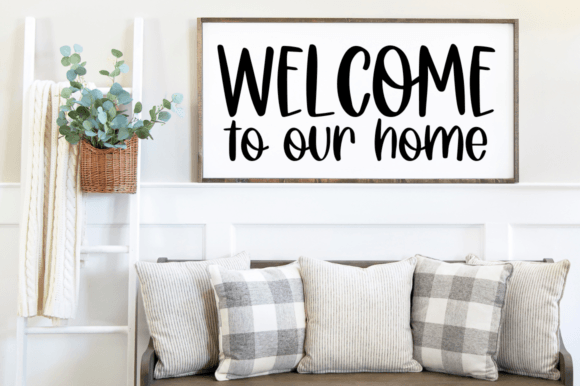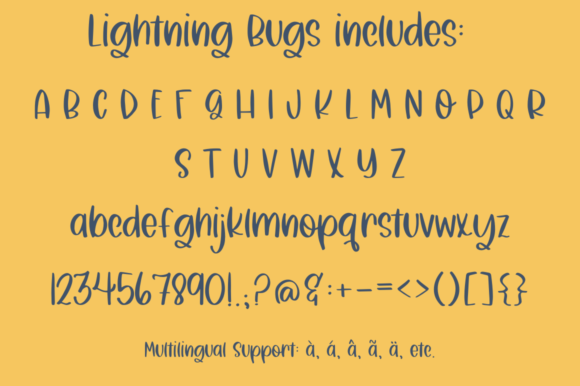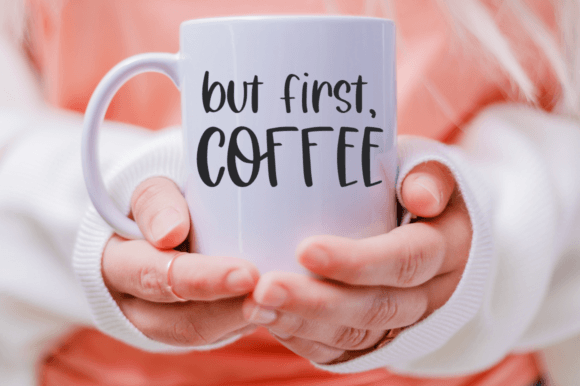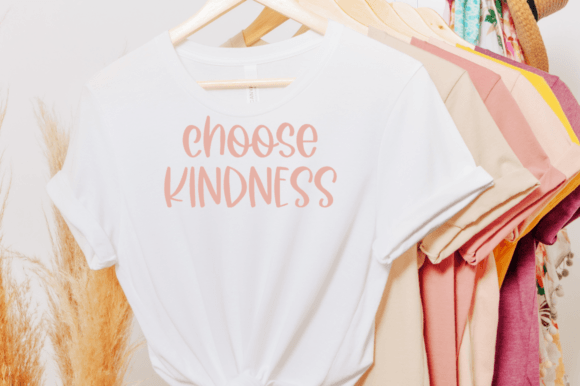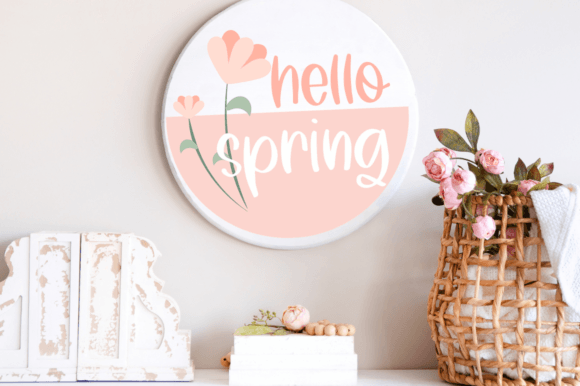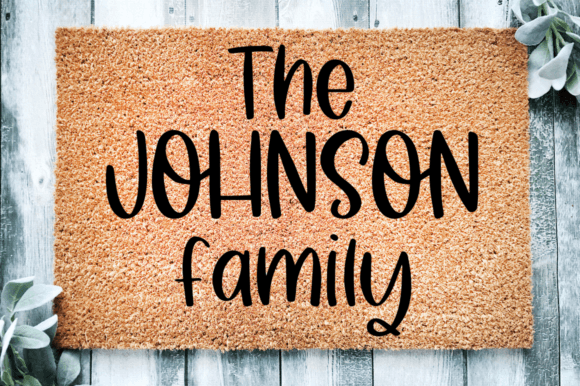
Introduction to Lightning Bugs Font
Remember the countless hours spent as a kid, mesmerized by fireflies dancing in the evening sky? The gentle glow and whimsical charm of those tiny creatures have always held a special place in our hearts. As designers, we’re always on the lookout for that perfect spark to ignite our creative projects. That’s where the Lightning Bugs Font comes in – a delightful handwritten font that’s sure to add a touch of magic to your designs.
This charming font is more than just a pretty face; it’s a valuable design resource that’s perfect for a wide range of creative projects. With its high-quality design and transparent background, it’s easy to use in any setting – from fun logos and greeting cards to social media graphics and stickers. The best part? It’s available for free download, making it an accessible addition to any designer’s toolkit.
Key Features of Lightning Bugs Font
- Transparent background for seamless integration into creative projects
- High-quality design resource ideal for designers and artists
- Unique characteristics: Whimsical, playful, and hand-drawn design elements, perfect for adding a touch of personality to any creative project
Honest Review: Lightning Bugs Font
As a designer, I’m always on the lookout for high-quality design resources to enhance my creative projects. The Lightning Bugs Font caught my eye, and I decided to give it a try.
- ✨ The font is highly customizable, with a wide range of options for colors, sizes, and styles.
- ✨ The transparent background feature allows for seamless integration with other design elements.
- ⚠️ The font may not be suitable for complex, multi-layered designs, as it can become overwhelming.
Overall, I’m impressed with the Lightning Bugs Font. Its high quality and versatility make it an excellent choice for designers working on creative projects. While it may have some limitations, it’s a great design resource to have in your toolkit.
The Lightning Bugs Font is a high-quality, free download that can elevate any creative project with its unique and playful style. This versatile font features a transparent background, making it easy to incorporate into various design elements.
Tips for Getting the Most Out of Lightning Bugs Font
1. Experiment with different font sizes and colors to create a visually appealing design.
2. Combine the Lightning Bugs Font with other design elements, such as images and graphics, to add depth and interest.
3. Use the font to create a consistent brand identity across your designs.
Common Use Cases for Lightning Bugs Font
1. Designing children’s books or educational materials.
2. Creating invitations or party decorations.
3. Developing branding and marketing materials for a playful or creative business.